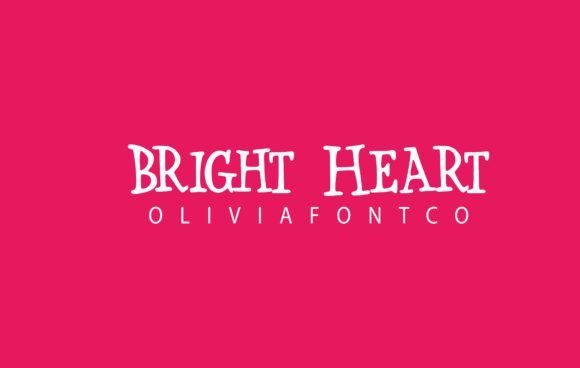
Introduction to Bright Heart Font
Bright Heart font is an authentic handwritten font with a romantic touch.
Key Features of Bright Heart Font
Why Choose Bright Heart Font?